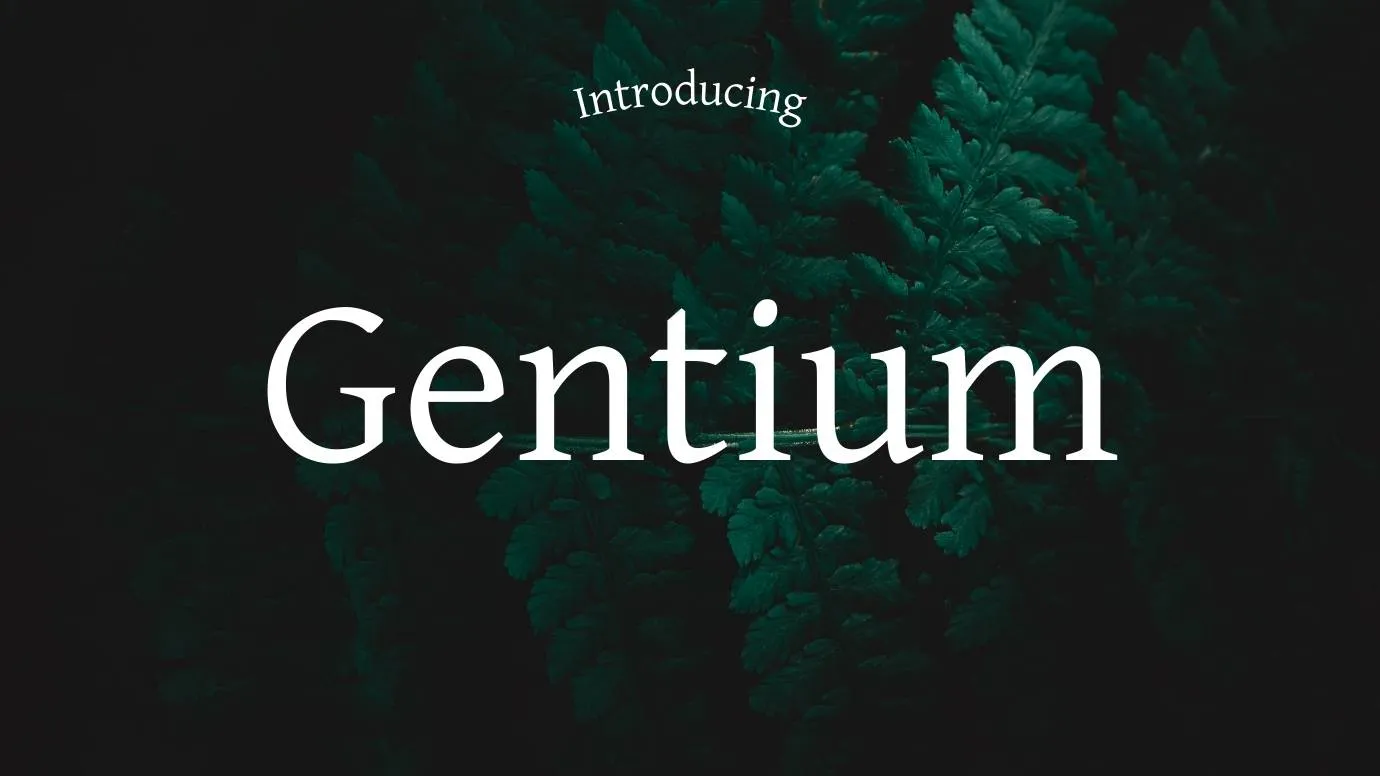
Gentium Font Family is a modern and cohesive typeface. This awesome typeface was mainly designed with the hard work of J Victor Gaultney. And after this typeface was released by SIL International Foundry.
| Name | Gentium Font |
| Type | Serif |
| Designer | J Victor Gaultney |
| Foundry | SIL International |